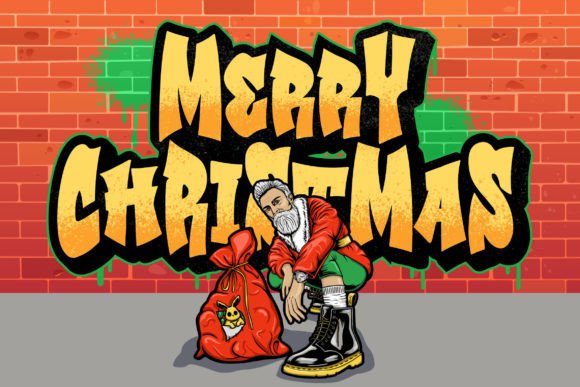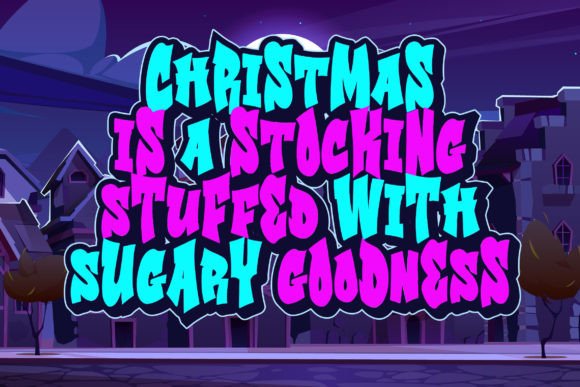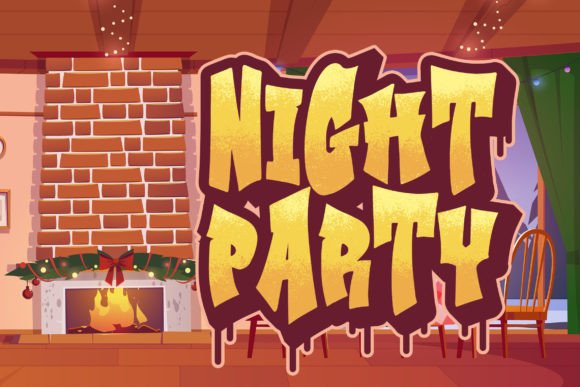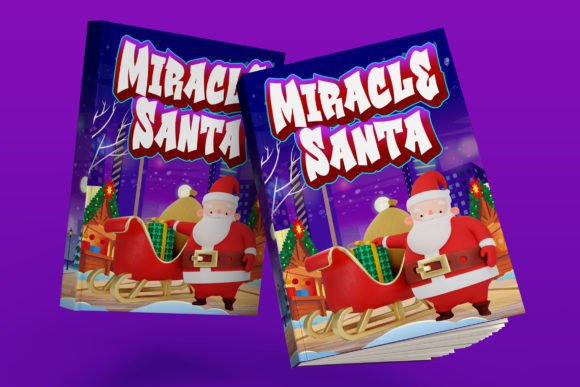
CHRISTMAS GRAFFITI FONT SPECIMEN
Are you looking for a Graffiti font? Do you want to create something that stands out and inspires creativity, imagination, and endless fun? Wait no more, here is the best choice.
Christmas Graffiti an is Urban Font inspired by urban style typography. This font is perfect for a design that makes it more attractive and playful. It was made with a very good level of aesthetics making this font suitable for book covers, posters, packaging, merchandise, logotypes, and much more.